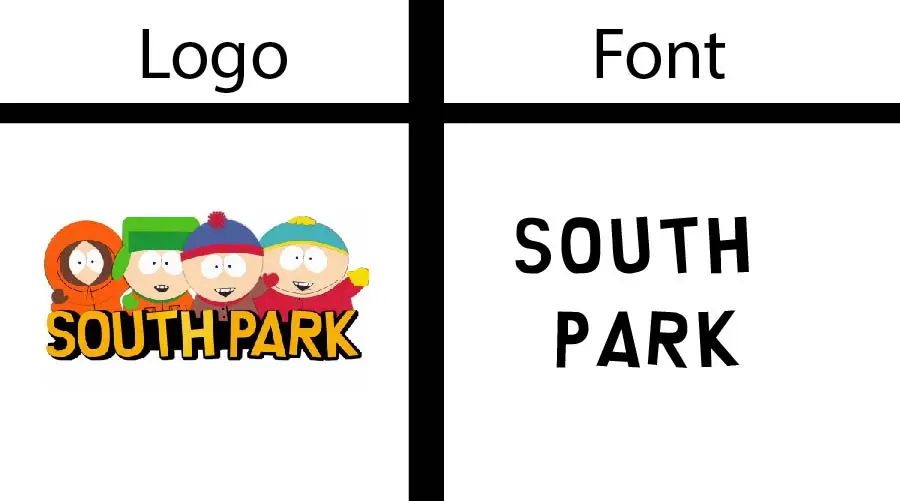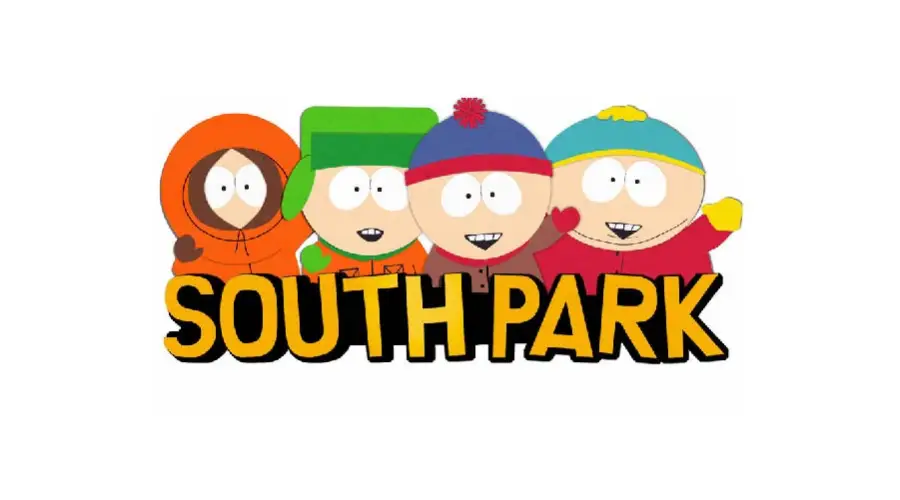
The font used in the South Park logo and title cards is similar to the South Park font, which is a free and fun typeface that was created by a fan of the show. The South Park font is a cartoon font that features bold and irregular letterforms. It is free to download and use, and it comes with uppercase and lowercase letters, numbers, punctuation, and multilingual support.
In short, the South Park font is a free and fun cartoon typeface inspired by the TV show South Park. It has bold and irregular letters and supports multiple languages.